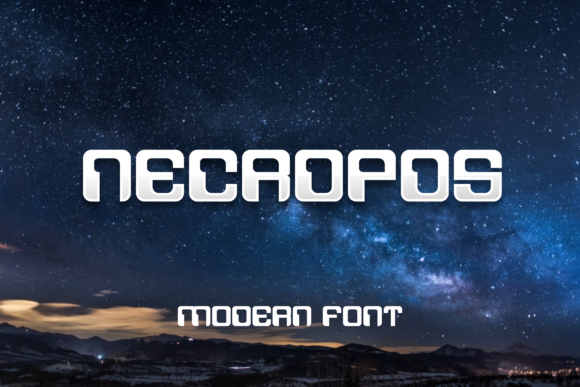
Unleash your originality with Necropos Font, a striking display font that injects boldness and authenticity into your designs. Crafted with precision by kalingga.albert, this exceptional font is a must-have for those seeking to make a lasting impression. Its distinctive letterforms exude character, adding an unmistakable touch of sophistication to your creations.
Necropos Font's versatility knows no bounds. Whether you're crafting a captivating logo, designing an eye-catching t-shirt, or embarking on any other branding project, this font will elevate your vision. Its unique style transcends boundaries, transforming ordinary designs into extraordinary masterpieces.
Immerse yourself in the limitless possibilities of Necropos Font. Its carefully crafted characters dance harmoniously across the page, captivating your audience with their dynamic presence. From logos that leave an indelible mark to t-shirt designs that spark conversations, Necropos Font empowers you to communicate your message with impact.
With Necropos Font at your fingertips, you'll effortlessly elevate your designs to new heights. Its modern aesthetic resonates with today's trends, ensuring your creations remain timeless and captivating. Join the ranks of creative visionaries who have harnessed the power of Necropos Font to redefine the boundaries of design.
As a modern font, Necropos Font embodies the spirit of innovation. Its clean lines and sharp angles reflect the progressive nature of contemporary design, making it the perfect choice for those seeking to stay ahead of the curve. Embrace the future with Necropos Font and watch your designs blossom into stunning works of art.